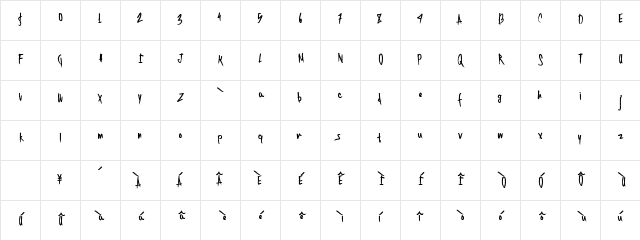
TwentySingles Regular
Foundry: Xerographer Fonts
Designer: Xerographer Fonts Max Infeld
Design Context for TwentySingles
TwentySingles is a composed and adaptable typeface that performs quietly and consistently across a wide range of design contexts.